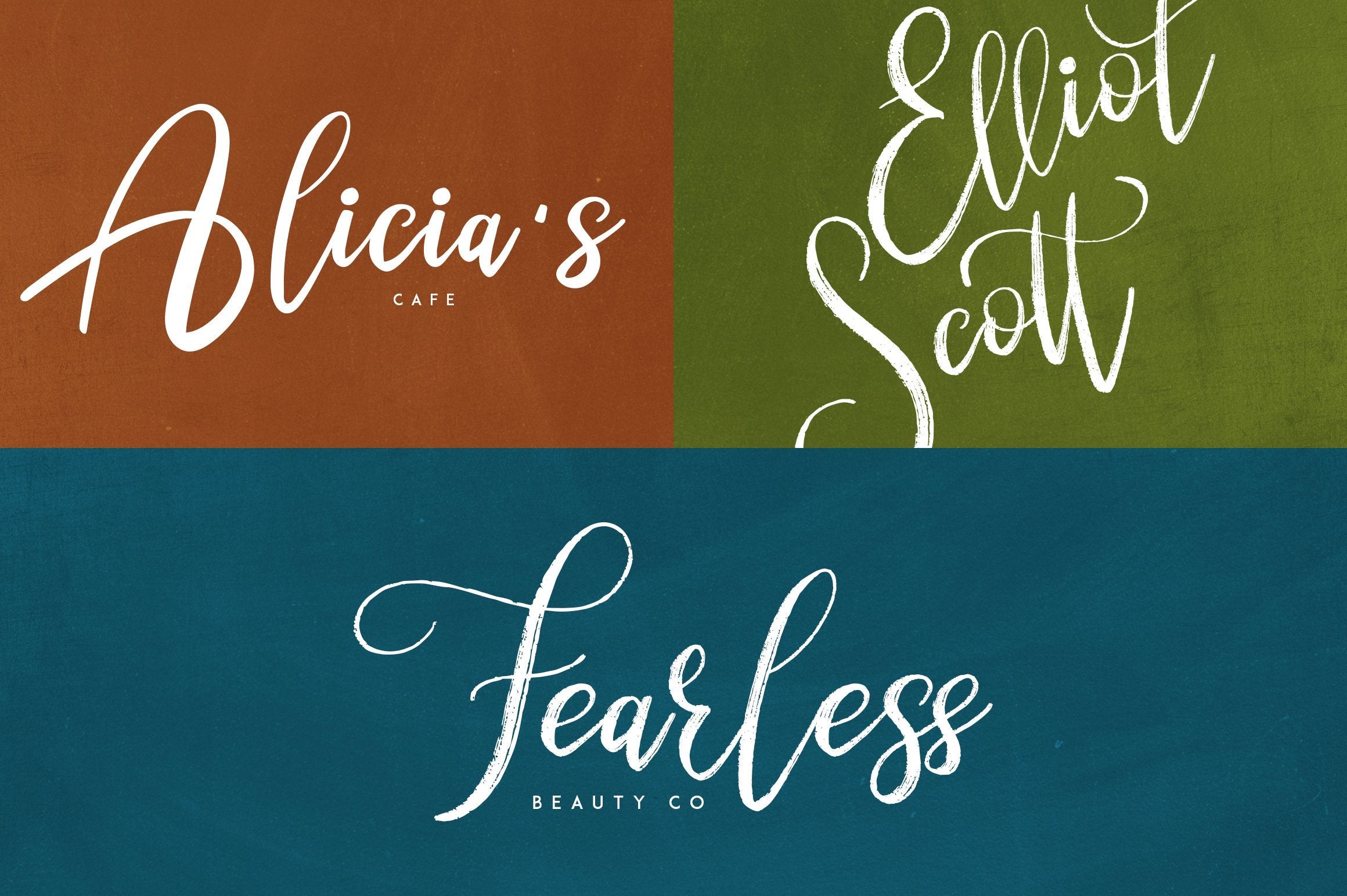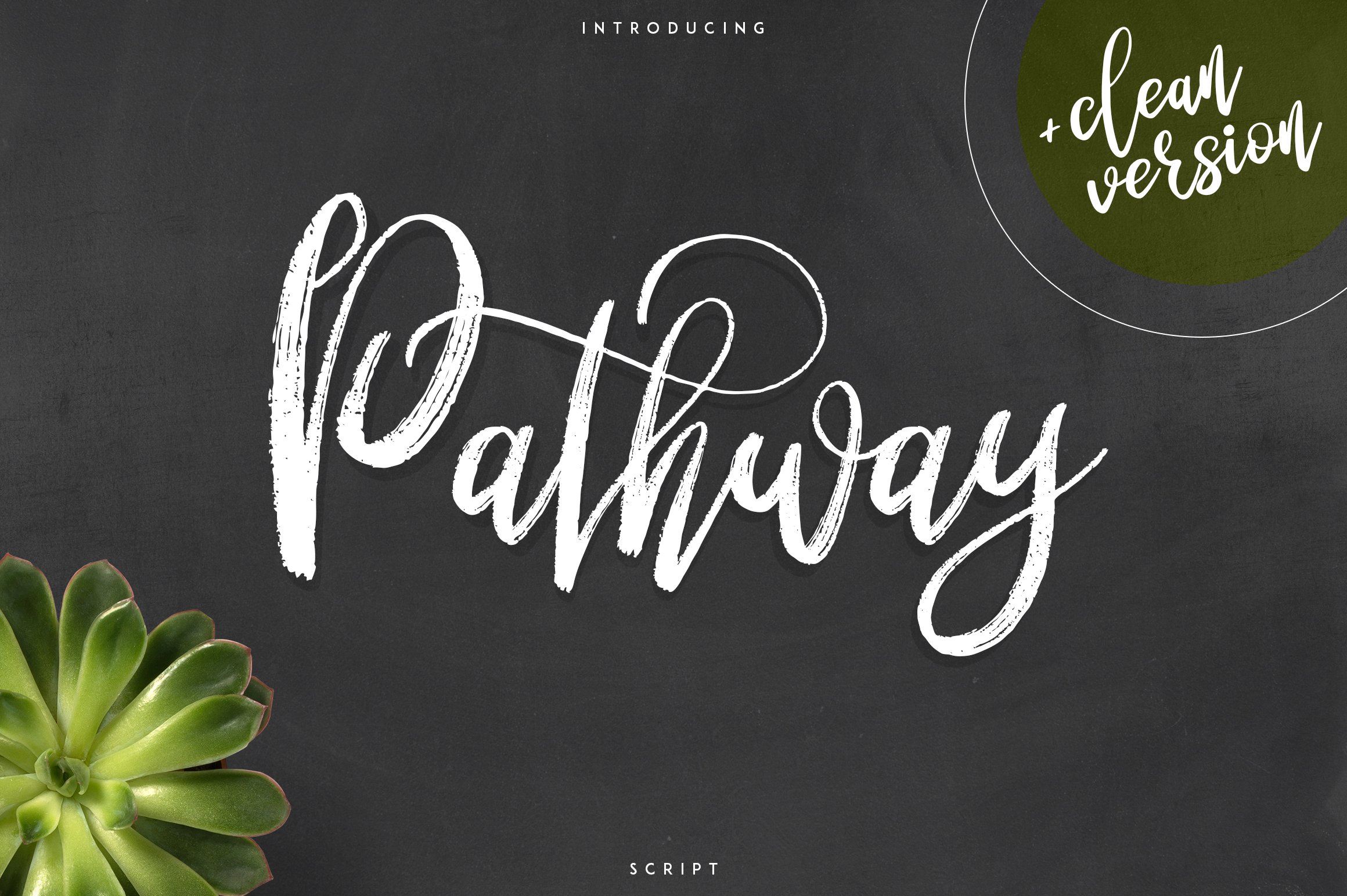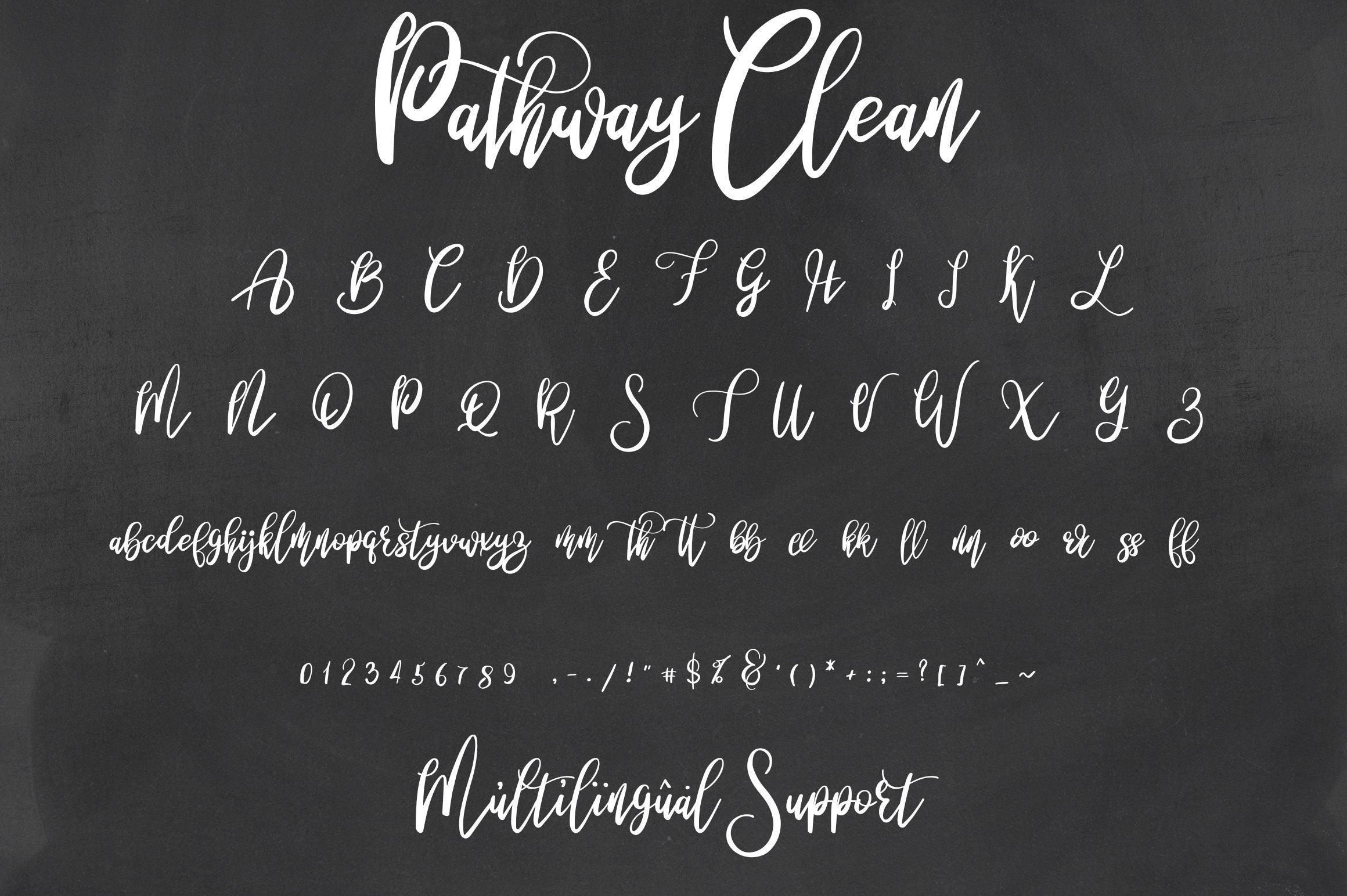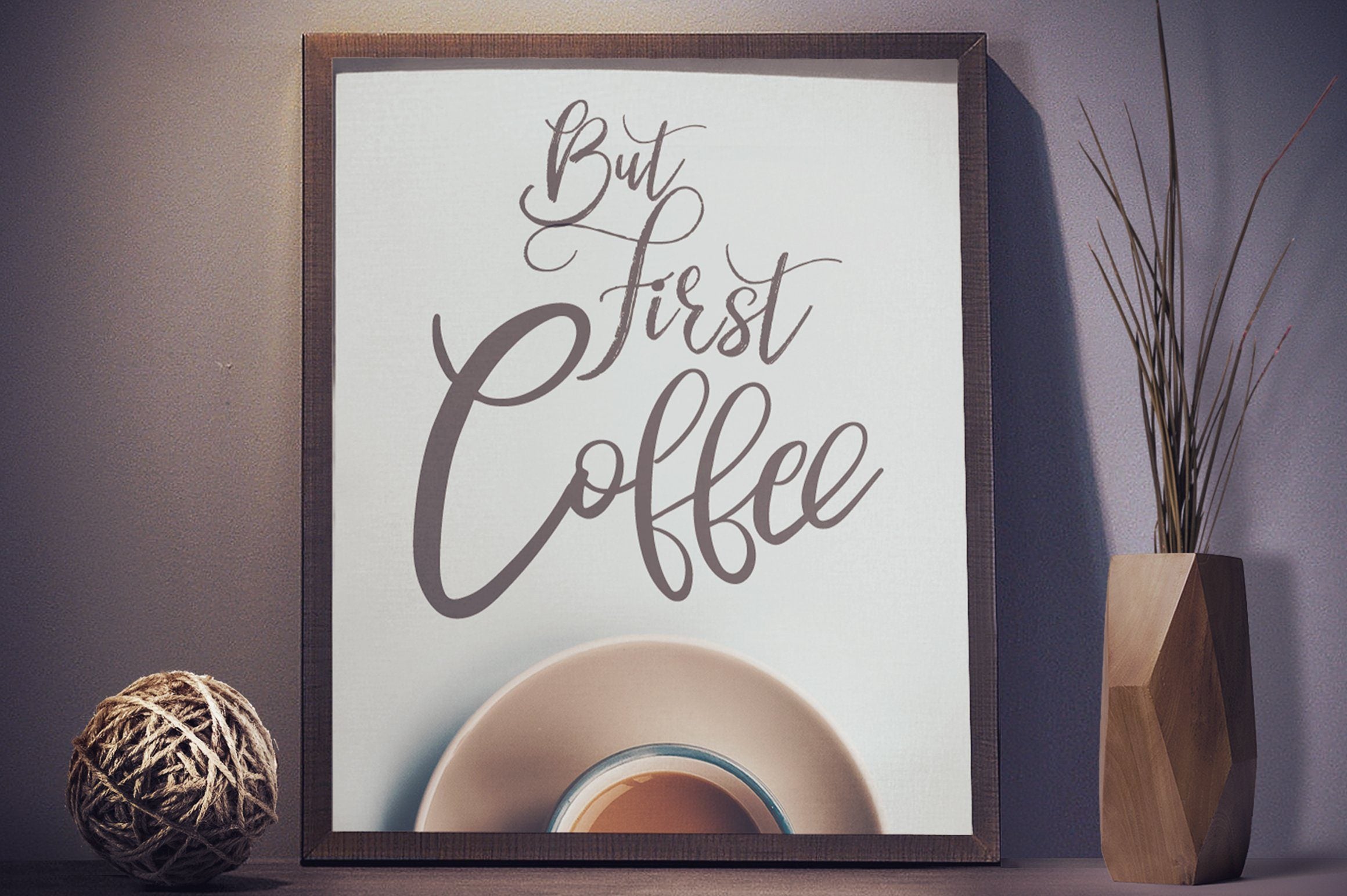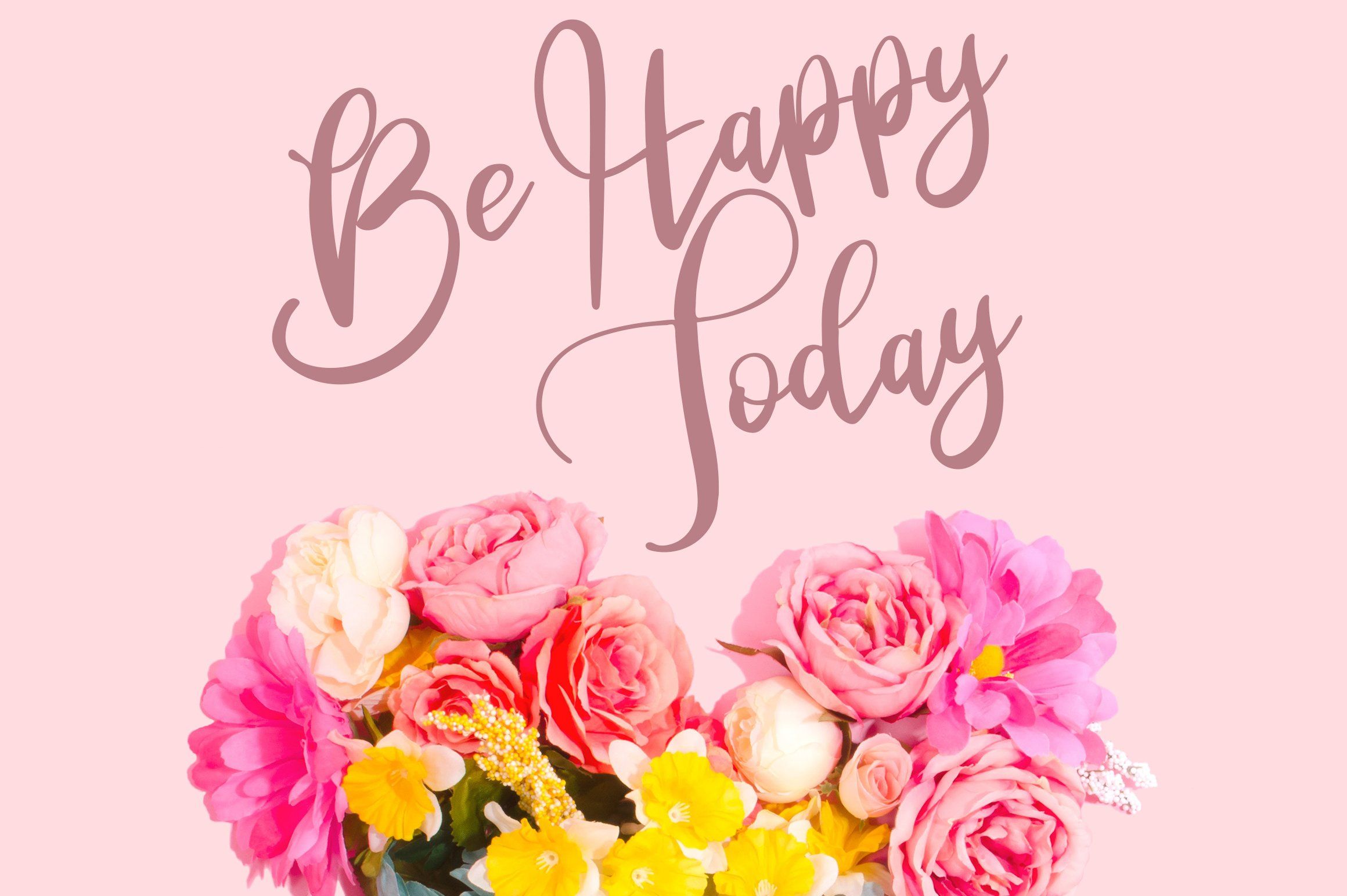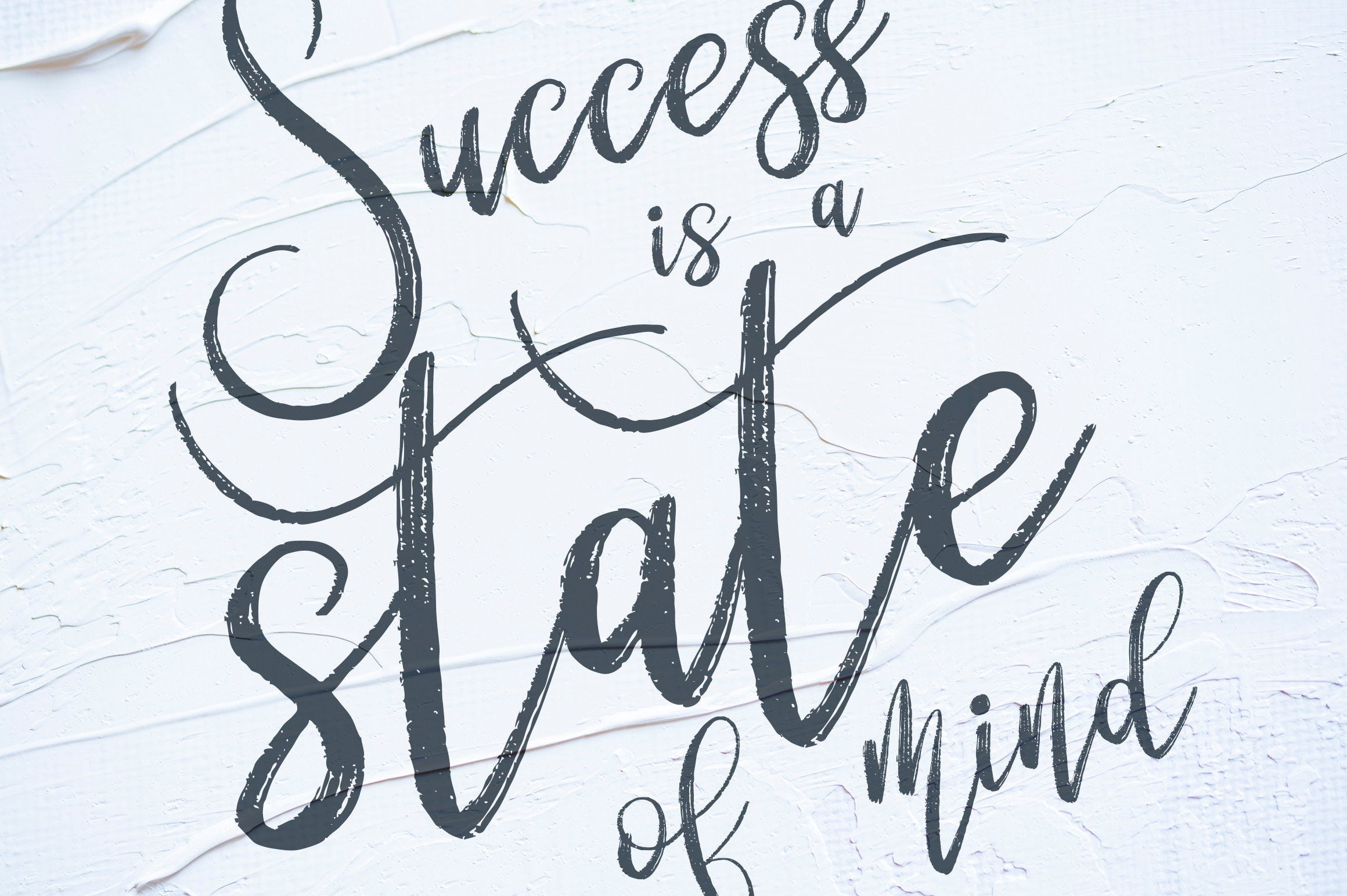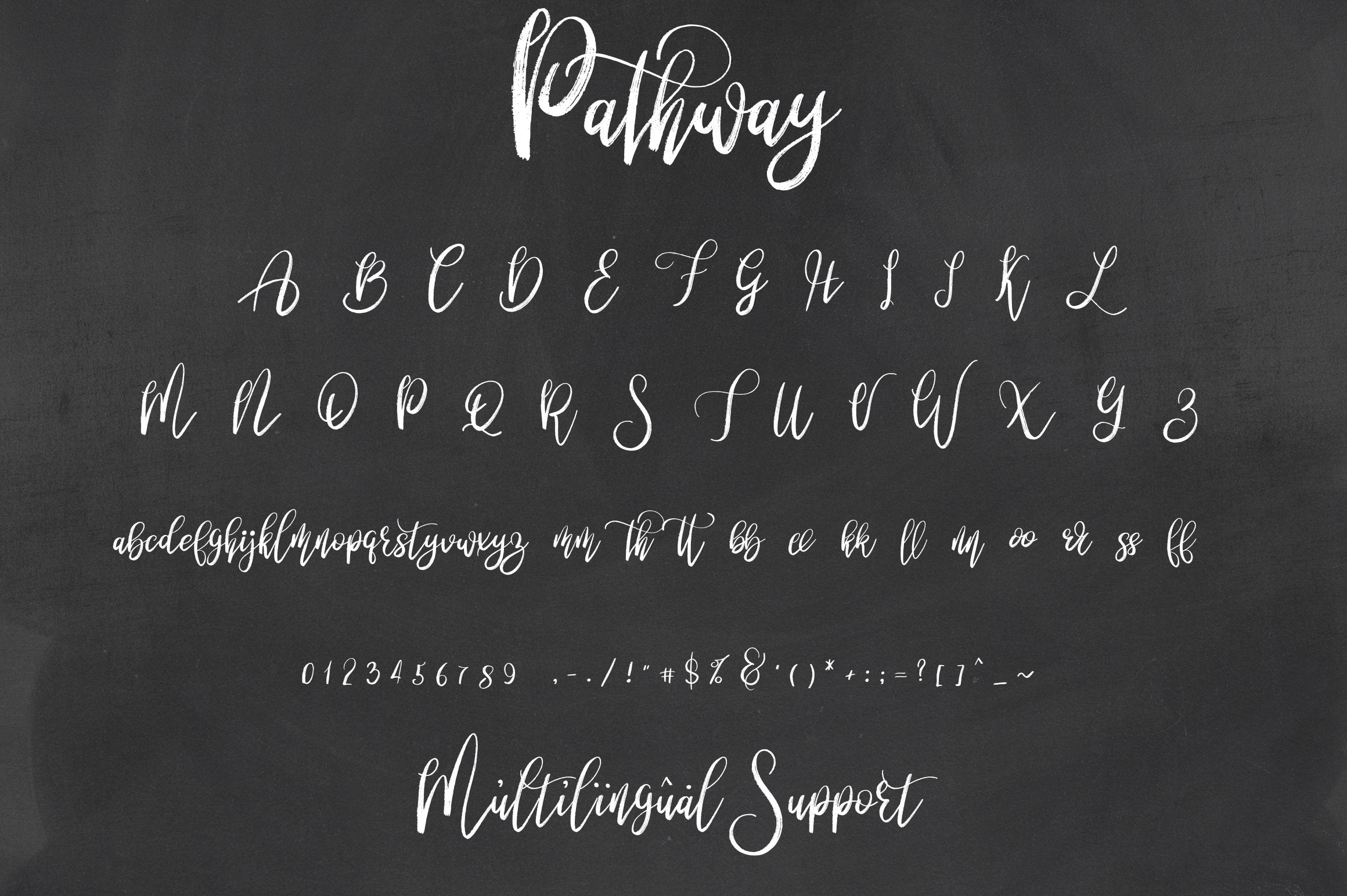
Pathway script – 2 styles
About Pathway script – 2 styles
Introducing Pathway script Pathway is hand-drawn, fun typeface with 2 styles and multilingual support. It’s a very versatile font that works great in large and small sizes. Pathway is perfect for branding projects, home-ware designs, product packaging, magazine headers – or simply as a stylish text overlay to any background image. Uppercase,lowercase,numeral,punctuation & Symbol Multilingual Rough Clean Ligatures – mm, th, tt, bb, ee, kk, ll, nn, oo, rr, ss, ff Feel free to contact me if you have any questions! Mock ups and backgrounds used are not included! Thank you! Enjoy!